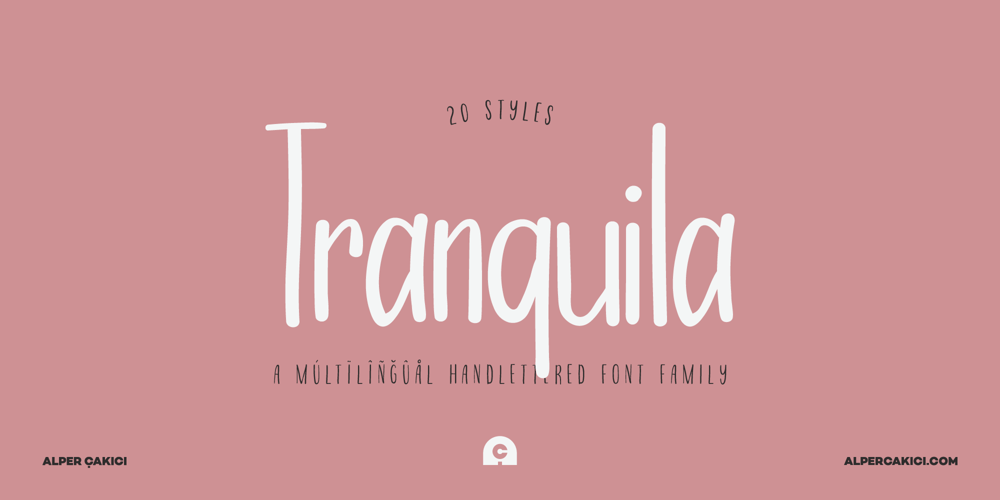
Tranquila Font Family was designed by Alper Çakıcı and published by Umka Type. Tranquila contains 20 styles and family package options. Introducing Tranquila, a versatile font designed to meet the demands of global communication with support for 92 languages. This font combines a playful yet professional handlettered style, ensuring readability and impact across diverse linguistic contexts.Tranquila’s broad language coverage, from Belarusian to Zulu, makes it an ideal choice for multinational projects, from business documents to creative endeavors. Its elegant design lends itself well to a range of applications, from corporate branding to editorial layouts.With Tranquila, you can convey your message effectively in multiple languages while maintaining a consistent visual identity. Enhance your projects with Tranquila’s refined aesthetic and comprehensive language support, ensuring your content resonates with audiences worldwide.Experience the power of Tranquila – a font that bridges linguistic boundaries and elevates your design capabilities to new heights.